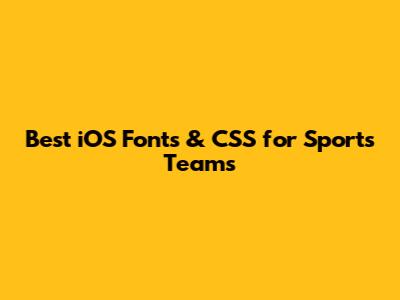
- Readability: The font should be easy to read on various screen sizes and resolutions. Clarity is paramount, especially for displaying scores, player names, and important information.
- Brand Identity: The font should align with the team's existing brand. Is the team known for being modern and aggressive, or traditional and sophisticated? The font choice should reflect this.
- Legibility: Ensure that all characters are easily distinguishable, even in small sizes. This is crucial for users with visual impairments.
- Aesthetics: The font should be visually appealing and complement the overall design of the app or website.
- SF Pro: As the default system font for iOS, SF Pro offers excellent readability and scalability. It’s a versatile option that works well for various sports-related content.
- Roboto: A widely used sans-serif font that provides a clean and modern look. Roboto is highly legible and suitable for displaying large amounts of text.
- Montserrat: This font exudes a contemporary vibe and is perfect for headlines, subheadings, and call-to-action buttons. Its geometric shapes add a touch of sophistication.
- Oswald: A reworked classic gothic typeface, Oswald is designed to be used freely across the digital landscape. Its condensed proportions make it ideal for headlines and banners.
- Bebas Neue: Known for its clean lines and tall, narrow structure, Bebas Neue is a popular choice for sports teams aiming for a modern and athletic look.
- Typography: Use CSS to style the fonts chosen for the website. Control the font size, line height, letter spacing, and text color to optimize readability and visual appeal.
Adding Custom Fonts:
- Import the Font Files: Add the font files (e.g.,
.ttfor.otf) to your Xcode project. - Update the Info.plist File: Add the
Fonts provided by applicationkey to yourInfo.plistfile and list the font file names. - Use the Font in Code: Use the
UIFontclass to create an instance of the custom font and apply it to your UI elements.
- Import the Font Files: Add the font files (e.g.,
Styling with CSS (using Web Views):
- Create a Web View: Add a
UIWebVieworWKWebViewto your iOS app. - Load HTML Content: Load HTML content into the web view and style it using CSS.
- Communicate between Native Code and Web Content: Use JavaScript to communicate between the native iOS code and the web content. This allows you to update the UI dynamically and handle user interactions.
- Create a Web View: Add a
- Optimize Font Files: Use font optimization tools to reduce the file size of your font files. This improves the loading time of your app and reduces bandwidth consumption.
- Use CSS Sprites: Combine multiple images into a single image file and use CSS sprites to display individual images. This reduces the number of HTTP requests and improves the performance of your app.